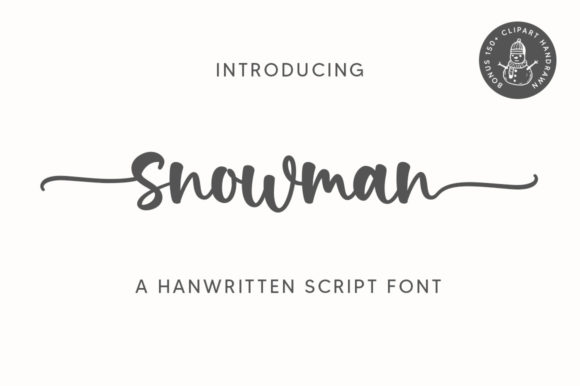
About Snowman Font
Snowman is a lovely and delicate script font that exudes elegance and class. This font was particularly crafted for those who need a beautiful and refreshing look to their designs.